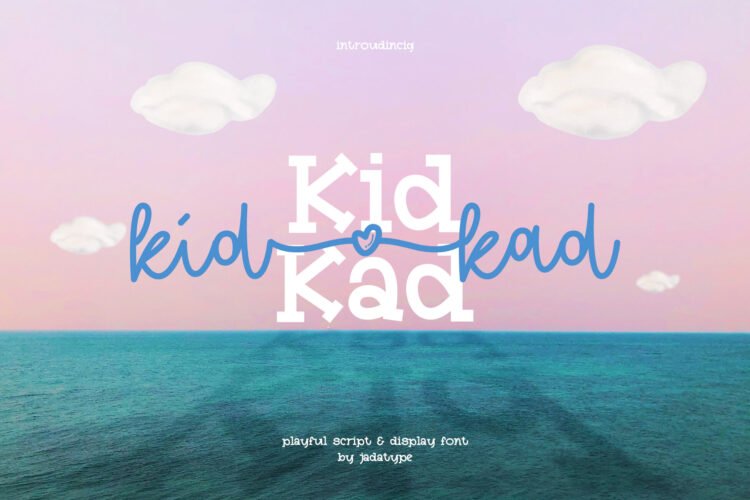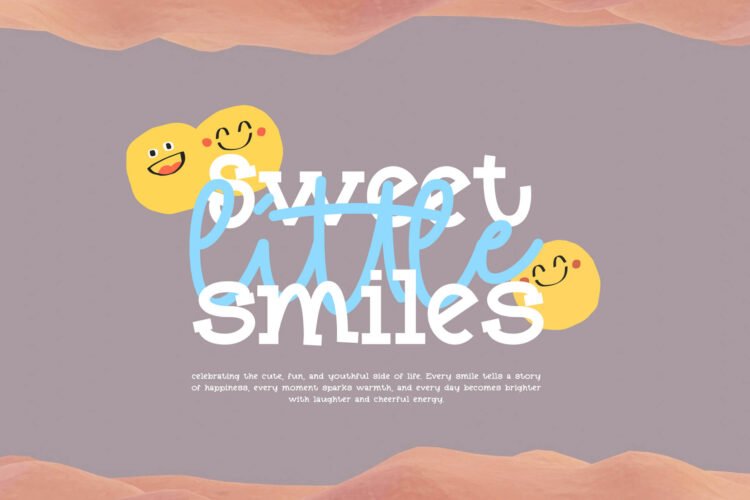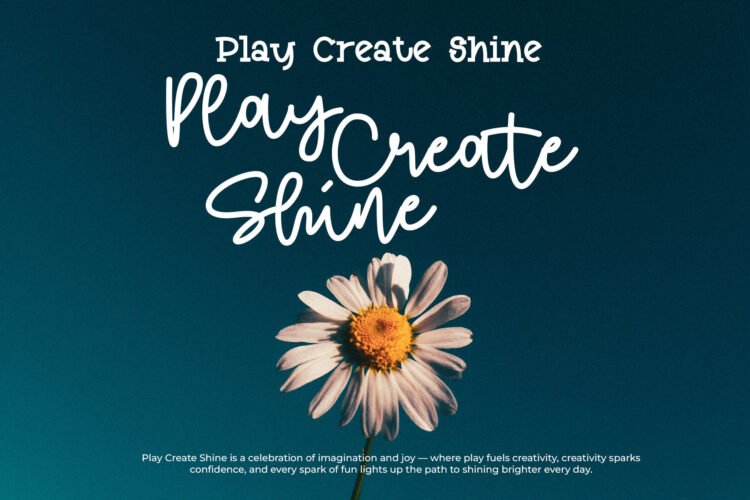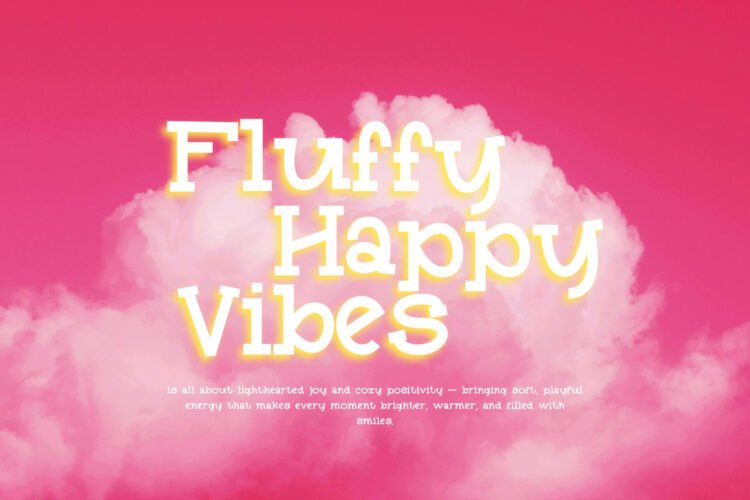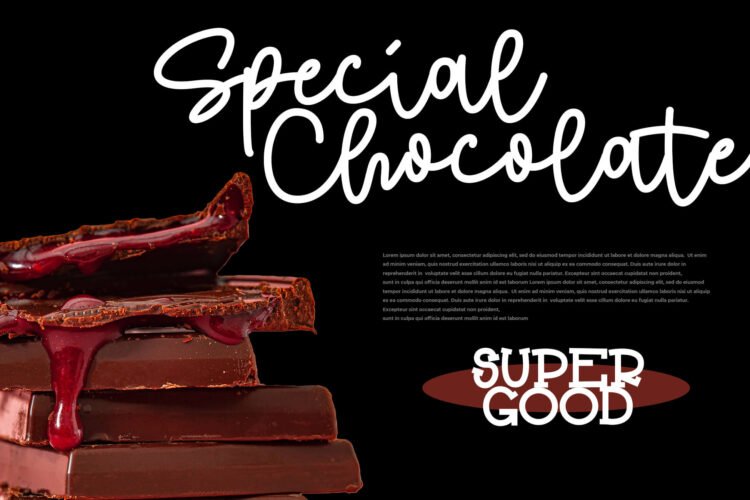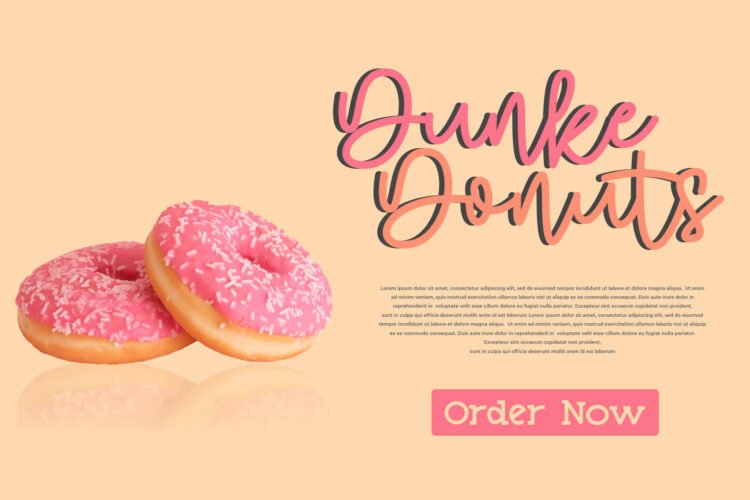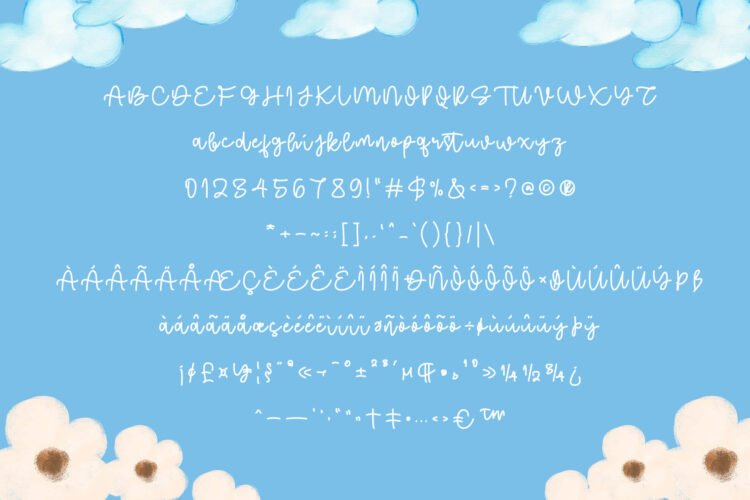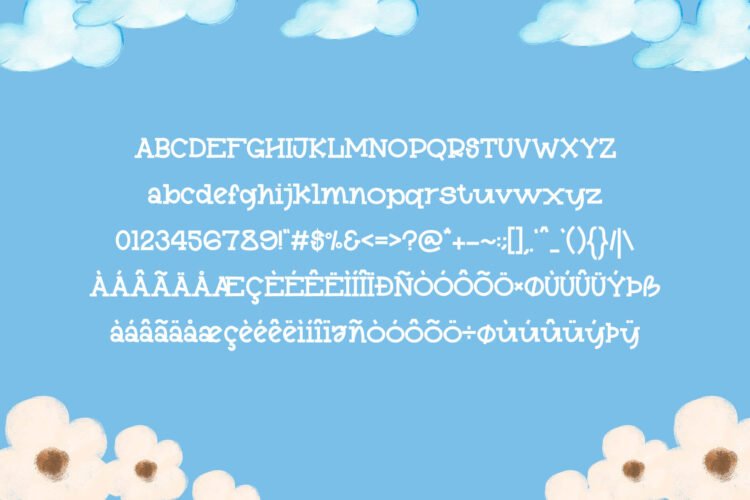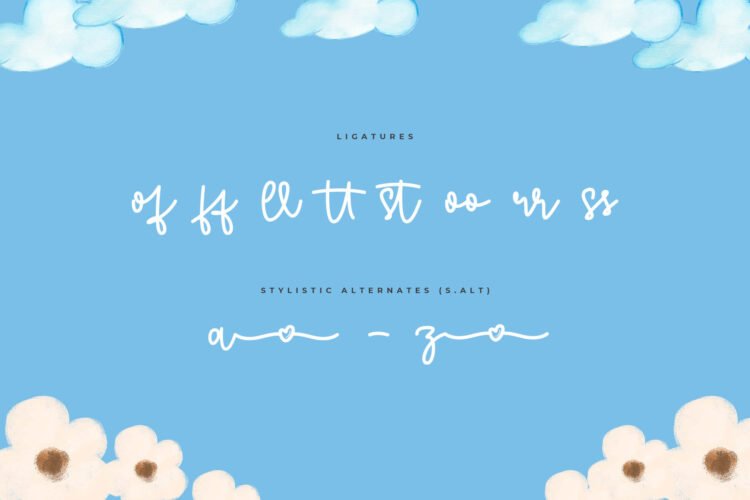
Kid Kad is a duo font that contains fine line script font and playful slab that had cute, playful, joy, youth, and bouncy feel. suitable for social media, branding, craft, products, handwritten, and so on. contains standard English letters, numbers, punctuation, and several accents that support multilingualism.